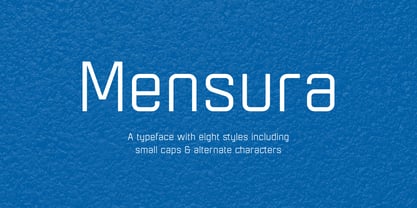
Mensura Font
Mensura Font is perfect for precision measurement companies, scientific instrument manufacturers, quality control organizations, calibration service providers, laboratory equipment brands, and technical standards institutions. This exacting typeface excels in measurement device packaging, scientific documentation, quality assurance materials, and any application where measurement precision and scientific accuracy create trusted connections with technical professionals and research communities.
What makes Mensura Font so exciting is its exceptional ability to embody the principles of precise measurement and scientific accuracy through meticulously calibrated letterforms that reflect the highest standards of technical precision. The font features exact proportions, measured spacing, and scientifically balanced character shapes that convey the reliability and accuracy essential to measurement science. Its precise presence makes it perfect for organizations that demand exactness and deliver scientific precision.
Mensura Font comes in a calibrated family including Ultra Light, Light, Regular, Medium, Bold, and Ultra Bold weights. Each style features complete uppercase and lowercase character sets, scientific symbols, precision numerals, and technical punctuation marks. The font family also includes measurement alternates, calibration ligatures, and scientific variations that allow designers to create truly accurate communications with technical appeal and scientific quality.
The font's scientific character makes it particularly effective for measurement laboratories, precision instrument companies, quality control organizations, and scientific standards institutions. Its exact readability ensures that Mensura Font communicates clearly while maintaining its distinctive precision personality. The font's ability to convey accuracy and scientific reliability makes it an invaluable gauge for any project seeking to celebrate measurement science and connect with technical professionals through the essential appeal of scientific precision, measurement accuracy, and the fundamental principles of exact calibration and technical excellence.